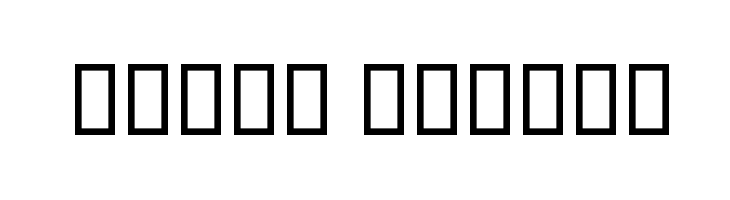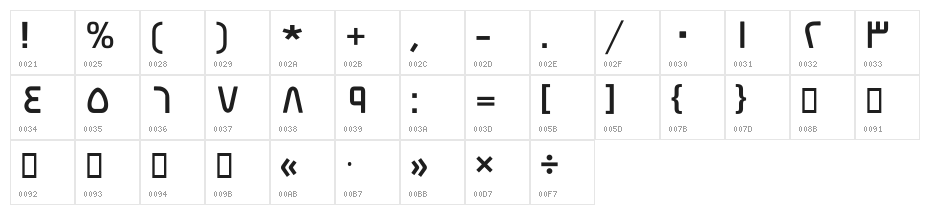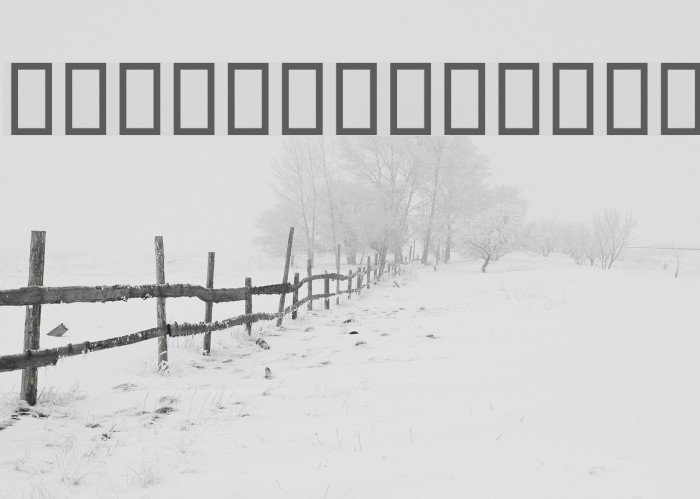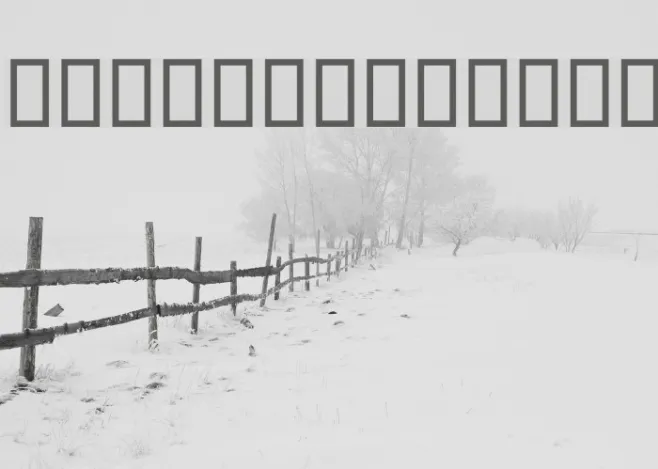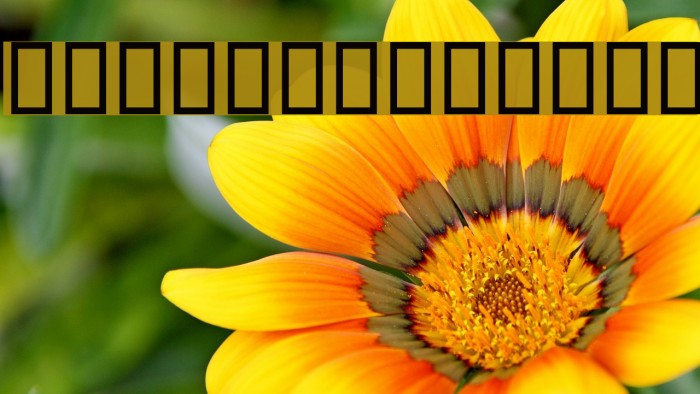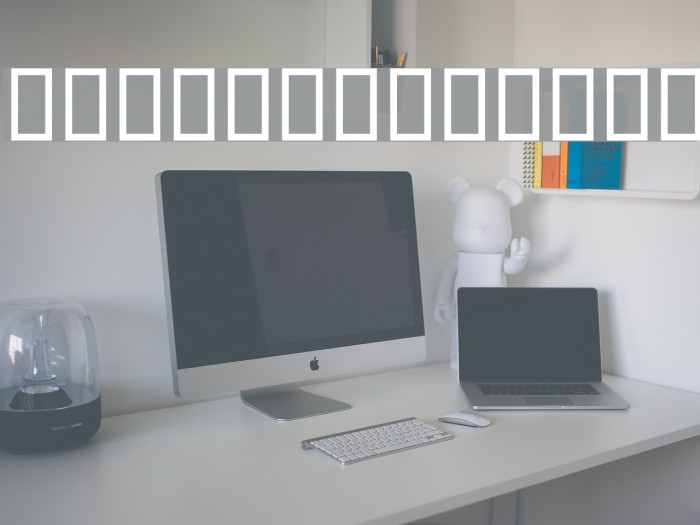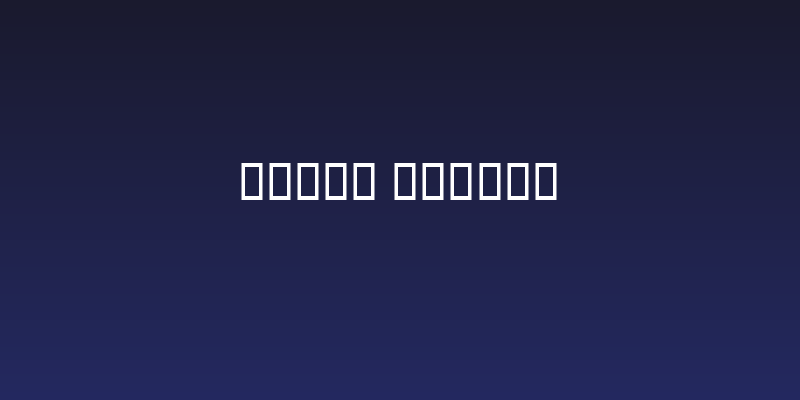
Saudi Arabia Font
Saudi Arabia Description
This font features a modern and clean design with a geometric structure, characterized by its uniform stroke width and clear, legible characters. The letters are well-proportioned and maintain a consistent height, contributing to a balanced and harmonious appearance. The numerals and special characters are designed to complement the alphabet, ensuring a cohesive look across all elements. This font is versatile, suitable for a variety of applications where clarity and readability are paramount.
| Proposed Projects | Ideal for digital interfaces, corporate branding, signage, and editorial design. |